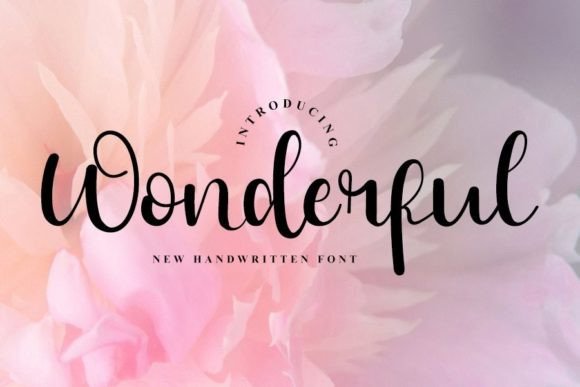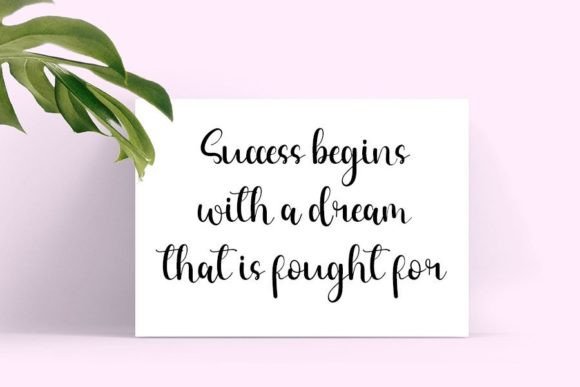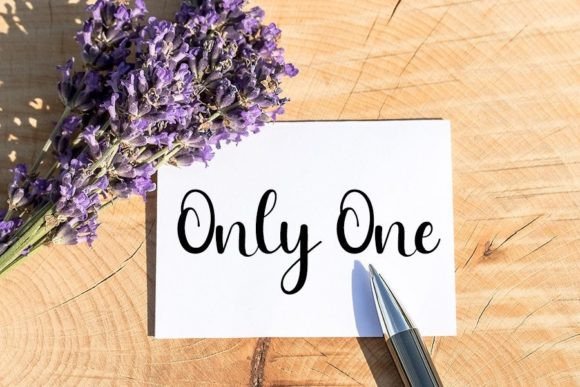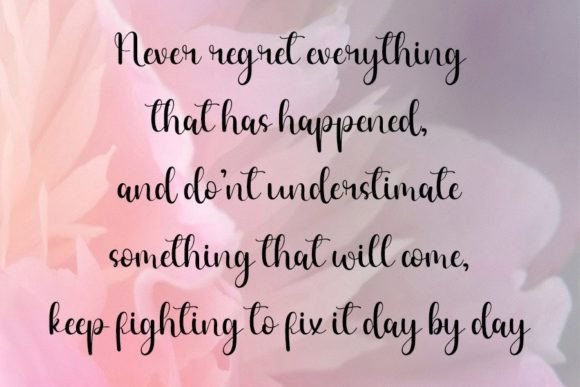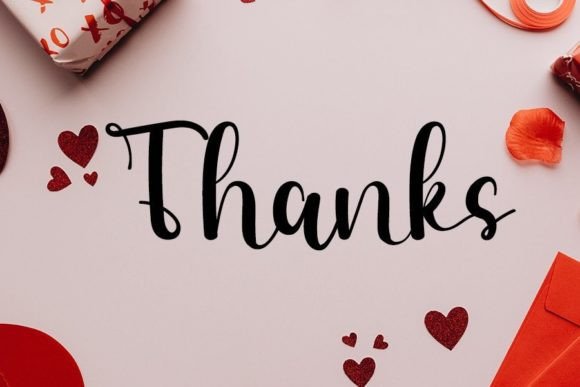
Wonderful Font
About Wonderful Font
Wonderful emerges as a refined and beautiful handwritten font, distinguished by an elegant touch that adds a sophisticated flair to your favorite projects. Immerse yourself in its impeccably neat and timeless style, and let it be the cornerstone for creating truly spectacular designs.
The neatness of Wonderful makes it a versatile choice for a myriad of projects. Whether you’re working on invitations, branding, or other creative endeavors, this font offers an elevated level of elegance that enhances the visual allure of your designs. Its timeless style ensures that it remains relevant and impactful across various applications.
The elegant touch of Wonderful sets it apart, making it a font that invites admiration. The subtle nuances and clean lines contribute to its beauty, creating a sense of balance that is visually pleasing. This font is not merely a typographic tool; it’s an expression of refined aesthetics that elevates your design projects to a new level of sophistication.
The versatility of Wonderful is a standout feature, making it suitable for both formal and informal contexts. Whether you’re crafting a stylish logo or designing a heartfelt message, this font adapts seamlessly, offering a touch of sophistication that is both distinct and captivating.
Fall in love with Wonderful and let its incredibly distinct and timeless style inspire your creative endeavors. This font has the power to transform your projects into visual masterpieces, leaving a lasting impression on your audience. Embrace the refined beauty of Wonderful and let it be the driving force for creating designs that are not only spectacular but also stand the test of time.